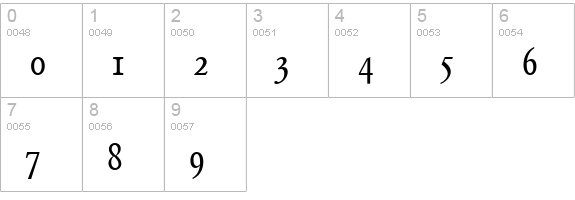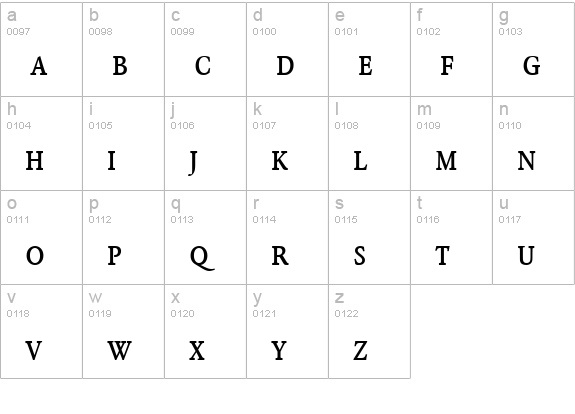
Garamond BE Condensed Small Caps & Oldstyle Figures Font Details
Garamond BE Condensed Small Caps & Oldstyle Figures is a distinctive, condensed-width variant in the Garamond typeface family \xE2\x80\x94 well suited to design and typography projects.
Garamond BE Condensed Small Caps & Oldstyle Figures font is a timeless and sophisticated typeface that exudes elegance and refinement. With its slim and condensed design, this font effortlessly captures attention and delivers a sense of professionalism and class. The small caps in Garamond BE Condensed beautifully complement the regular lowercase letters, adding versatility and variety to your designs. The oldstyle figures, on the other hand, give your text a classic and vintage feel, perfect for projects that require a touch of nostalgia and tradition. One of the greatest advantages of Garamond BE Condensed Small Caps & Oldstyle Figures font is that it is freely available to download at FontsMarket.com. This means that you can enjoy the beauty and functionality of this font without any cost or restrictions. Whether you are a designer, writer, or simply someone who appreciates high-quality typography, this font is a must-have addition to your collection. The clean lines and balanced proportions of Garamond BE Condensed Small Caps & Oldstyle Figures font make it ideal for various applications. It works seamlessly in both print and digital media, making it a versatile choice for branding, editorial design, signage, packaging, and more. Its legibility and readability ensure that your message is conveyed with clarity and impact. With Garamond BE Condensed Small Caps & Oldstyle Figures font, you have the freedom to express your creativity and create designs that stand out. Its timeless appeal and adaptability make it a reliable choice for any project, whether it's a formal invitation, a book cover, or a corporate logo. Download Garamond BE Condensed Small Caps & Oldstyle Figures font for free at FontsMarket.com and elevate your designs with this exceptional typeface. Embrace the elegance and charm of Garamond BE Condensed and bring your creative visions to life with this timeless font.